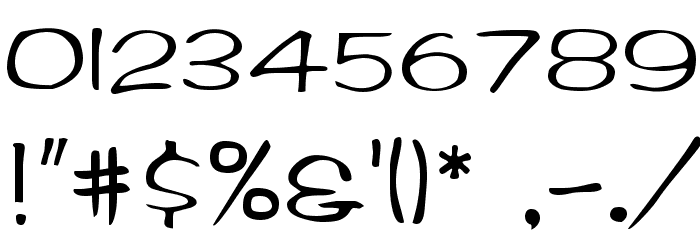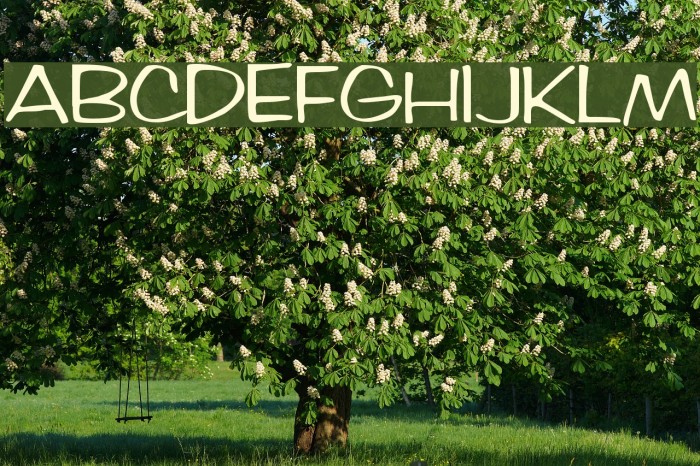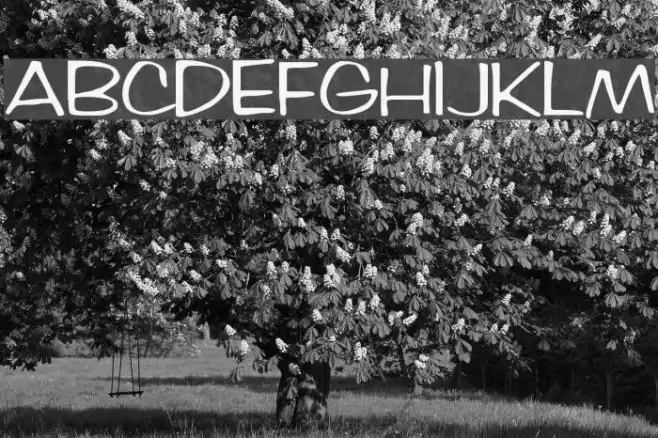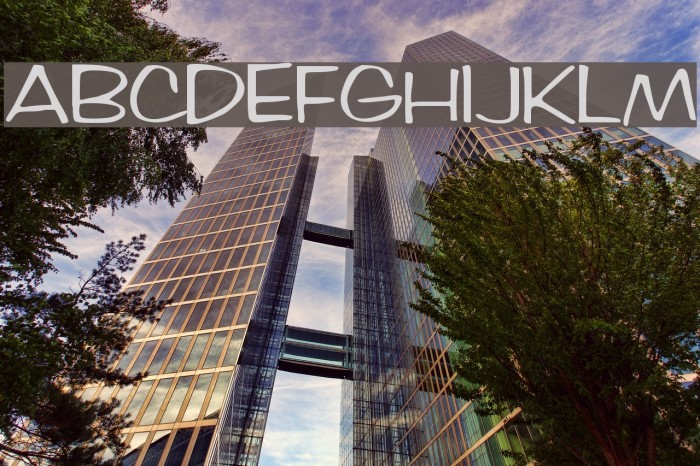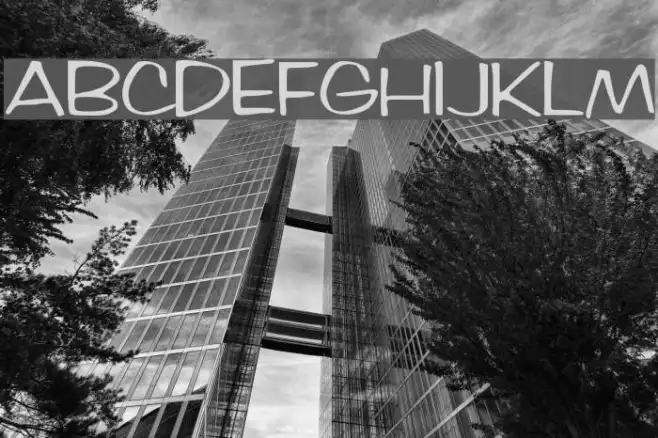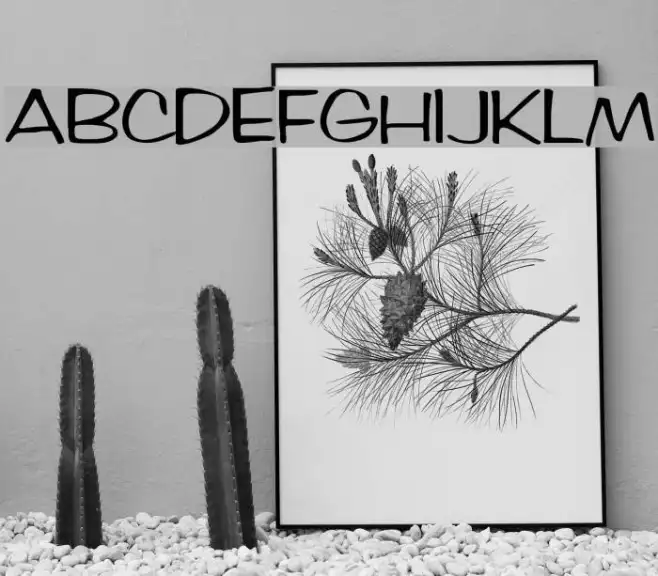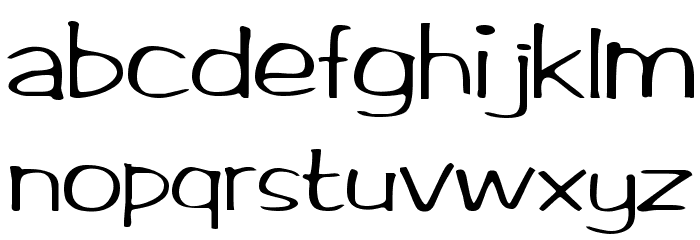
Arctic Regular Font
Arctic Regular Description
This font features a playful and whimsical design, characterized by its rounded and slightly irregular letterforms. The strokes are smooth and consistent, giving it a friendly and approachable appearance. The uppercase letters are bold and prominent, while the lowercase letters maintain a balanced and harmonious flow. The numerals are clear and easy to read, with a similar playful style. Special characters are well-integrated, maintaining the overall aesthetic. This font is versatile, suitable for a variety of creative projects that require a touch of personality and charm.
| Overall Style | Playful |
| Use Case | Headlines, Logos, Creative projects |
| Proposed Projects | Ideal for children's books, playful branding, greeting cards, and creative posters. |